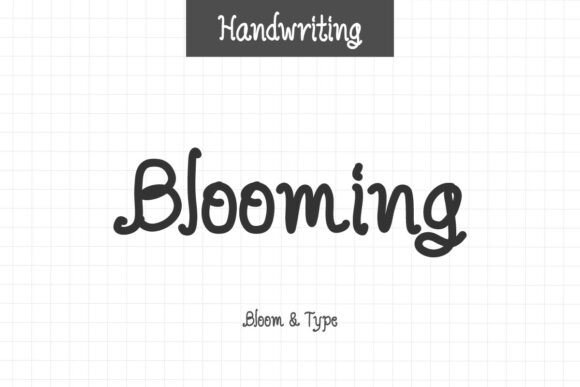
Blooming Font: The Cheerful Handwritten Font for Joyful Designs
Blooming is a delightful handwritten font that embodies warmth, friendliness, and positivity in every letter. Its rounded forms and playful curls create a welcoming and lighthearted vibe, perfect for designs that want to feel natural, joyful, and creative. Whether you’re a designer, crafty DIY enthusiast, or social media influencer, Blooming font is sure to bring a smile to your face and a touch of happiness to your projects.
The Characteristics of Blooming Font
Blooming font boasts a range of characteristics that make it a standout choice for designers and crafters. Its gentle strokes and smooth balance make it highly legible, while maintaining a personal, handcrafted touch. The font’s rounded forms and playful curls add a whimsical and carefree feel, making it perfect for designs that want to convey a sense of joy and friendliness.
Perfect for a Range of Design Projects
Blooming font is versatile and can be used for a wide range of design projects. Its cheerful and uplifting charm makes it perfect for:
- Lifestyle brands: Add a touch of warmth and friendliness to your brand’s designs with Blooming font.
- Quotes and typography: Make your quotes and typography designs stand out with the playful and whimsical feel of Blooming font.
- Stationery and invitations: Create beautiful and eye-catching stationery and invitations with Blooming font.
- Social media graphics: Add a touch of happiness and personality to your social media graphics with Blooming font.
Multilingual Support
Blooming font also offers full multilingual support, making it perfect for global creative workflows. With support for languages such as:
- Spanish
- French
- German
- Portuguese
- Italian
You can create designs that connect with a global audience and add a touch of happiness to every language.
Why Choose Blooming Font?
So why choose Blooming font for your next design project? Here are just a few reasons:
- Unique and eye-catching: Blooming font is a unique and eye-catching choice that will make your designs stand out.
- Highly legible: The font’s gentle strokes and smooth balance make it highly legible, even at small sizes.
- Personal and handcrafted: Blooming font has a personal, handcrafted touch that will add a touch of warmth and friendliness to your designs.
- Multilingual support: With full multilingual support, Blooming font is perfect for global creative workflows.
Tips for Using Blooming Font
Here are a few tips for using Blooming font in your designs:
- Pair with bold fonts: Pair Blooming font with bold fonts for a striking contrast.
- Use in combination with images: Use Blooming font in combination with images to add a touch of personality and whimsy.
- Experiment with colors: Experiment with different colors to add a pop of color and fun to your designs.
Blooming font is a cheerful handwritten font that captures warmth, friendliness, and positivity in every letter. Its rounded forms and playful curls create a welcoming and lighthearted vibe, perfect for designs that want to feel natural, joyful, and creative. With full multilingual support and a range of design possibilities, Blooming font is the perfect choice for designers and crafters looking to add a touch of happiness to their projects.